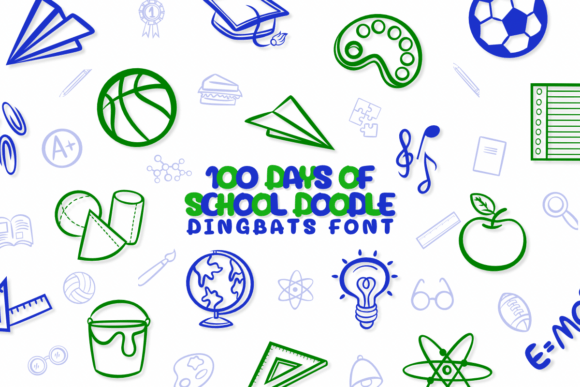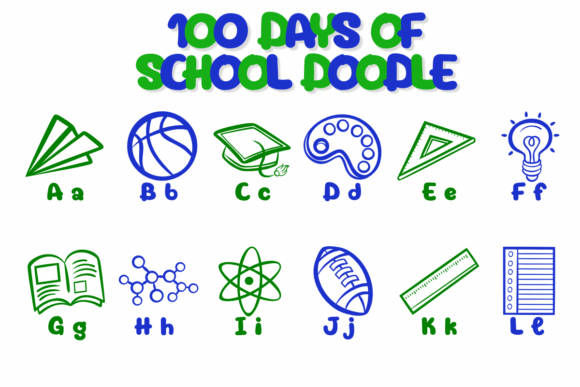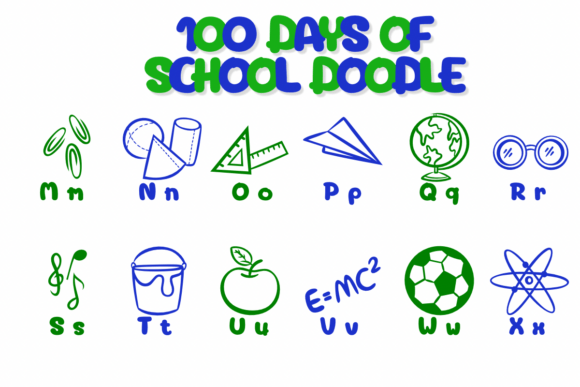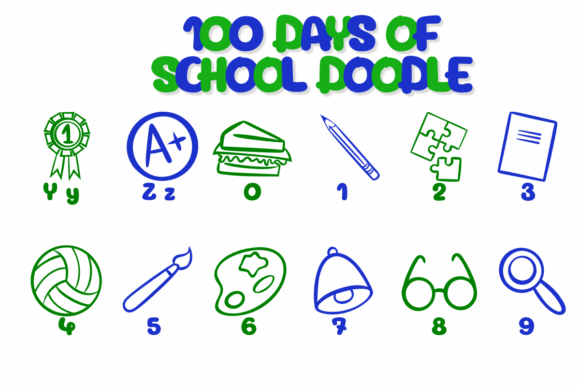
100 Days of School Doodle Font
About the 100 Days of School Doodle Font
Make a bold statement with 100 Days of School Doodle Font, a powerful and memorable font. 100 Days of School Doodle is a delightful dingbat font packed with playful, school-themed icons. From books and globes to sports and art supplies, this font is perfect for classroom decorations, educational materials, activity sheets, or fun DIY projects. Add charm and creativity to your school-inspired designs with these versatile, doodle-style graphics!
This font’s playful nature makes it ideal for children’s books, invitations to school events, or branding for educational businesses targeting a younger audience. It shines in applications where visual interest is paramount, such as posters, stickers, and social media graphics. However, its highly decorative style is unsuitable for body text or situations requiring high readability, such as website copy or lengthy documents.
Pairing 100 Days of School Doodle with a clean sans-serif like Open Sans for supporting text creates a balanced design. For a more whimsical feel, consider pairing it with a handwritten script font, but ensure legibility by using the script sparingly. Avoid pairing it with other heavily decorated or overly stylized fonts to prevent visual clutter.
The font’s overall personality is undeniably cheerful and energetic, lending itself well to projects that celebrate fun, creativity, and learning. Its informal style makes it perfect for brands that want to convey approachability and a sense of youthful enthusiasm.
100 Days of School Doodle Font Usage Examples
100 Days of School Doodle Font Example